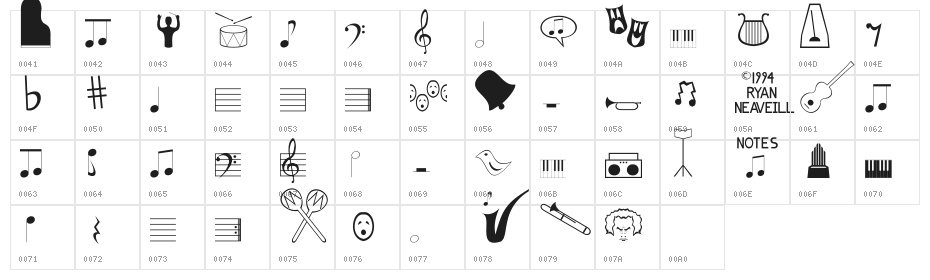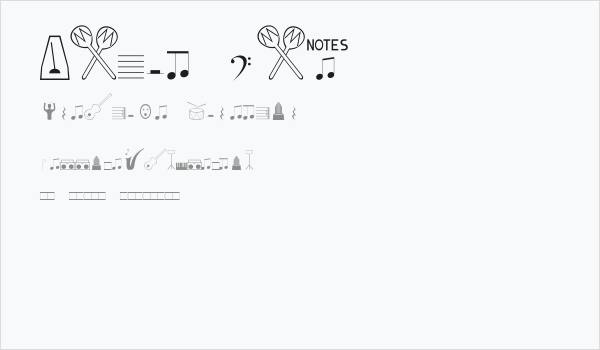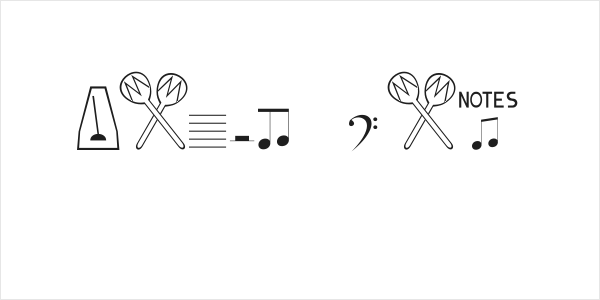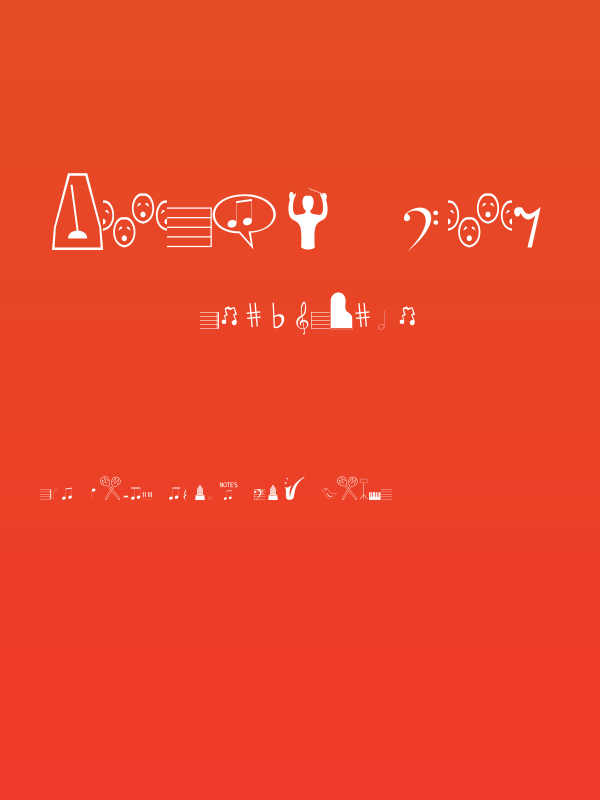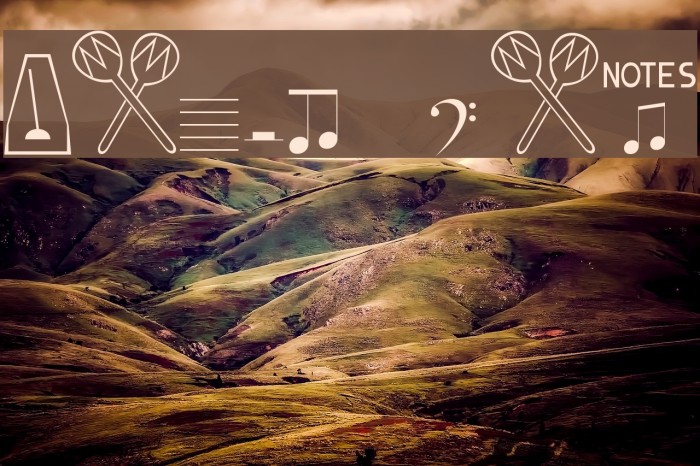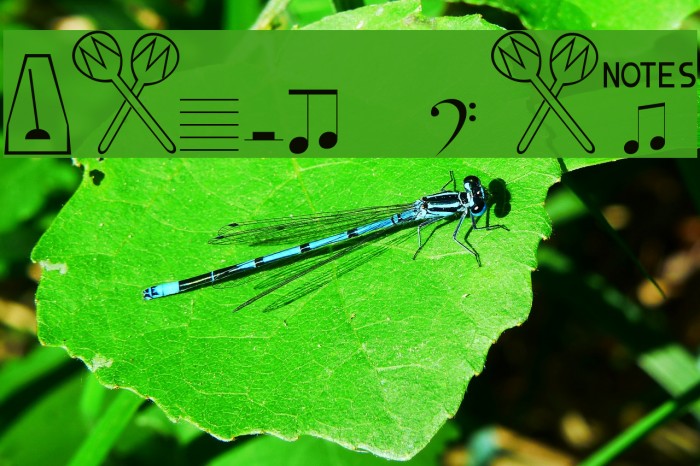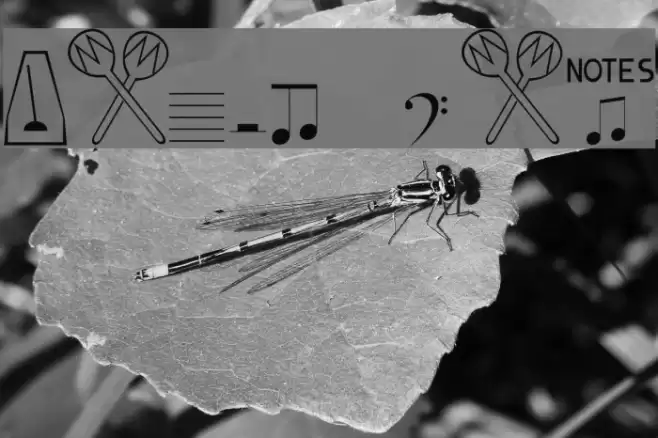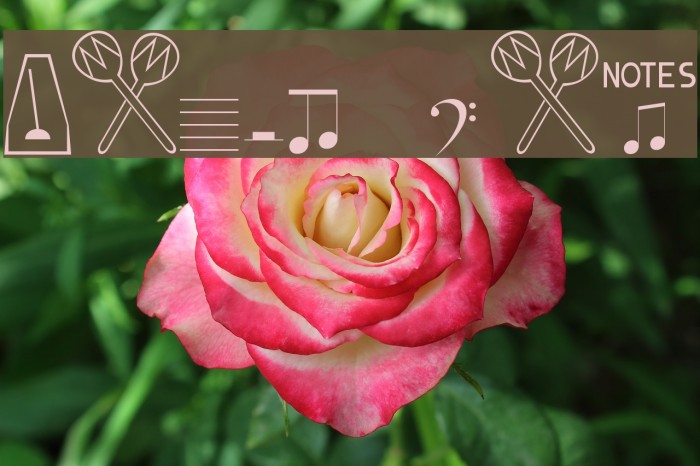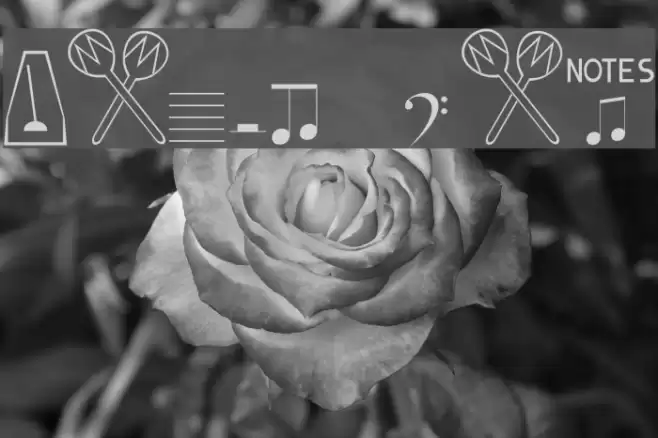
Music Fun Font
This is a decorative font featuring a playful and whimsical collection of musical symbols and icons. Each character is represented by a unique musical element, such as notes, instruments, and other music-related imagery. The style is bold and graphic, with a focus on fun and creativity, making it ideal for projects that aim to capture the essence of music in a visual form. The font includes a variety of musical symbols, from treble clefs to drums, and even theatrical masks, offering a wide range of expressive possibilities. The design is clean and easily recognizable, ensuring that each symbol stands out distinctly.
| Use Case | Logos, Headlines, Posters |
| Proposed Projects | Ideal for music-themed posters, educational materials, event flyers, and creative projects that require a musical touch. |